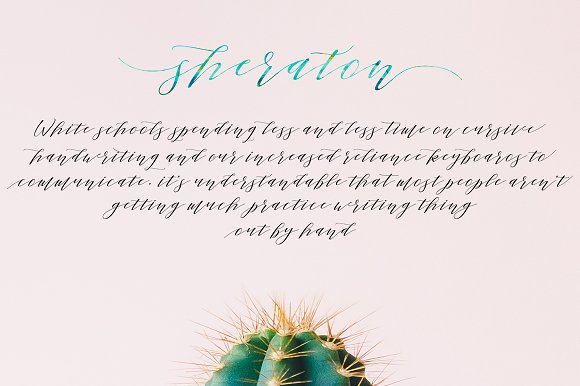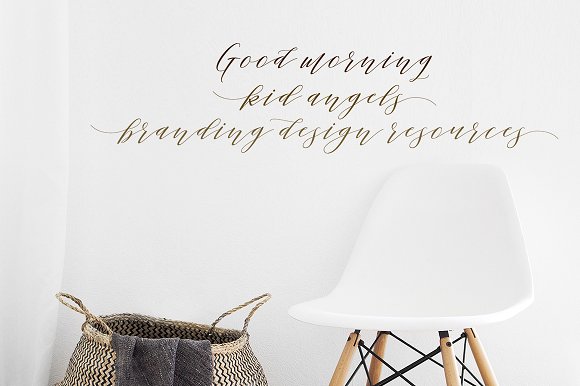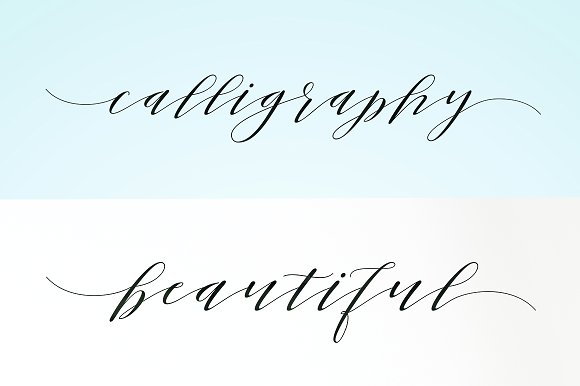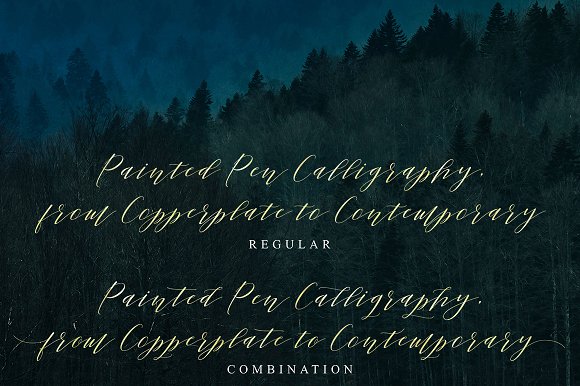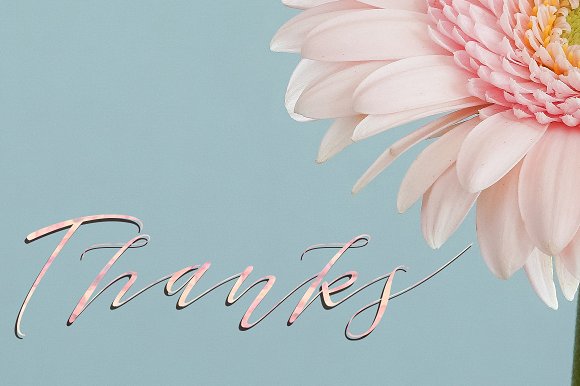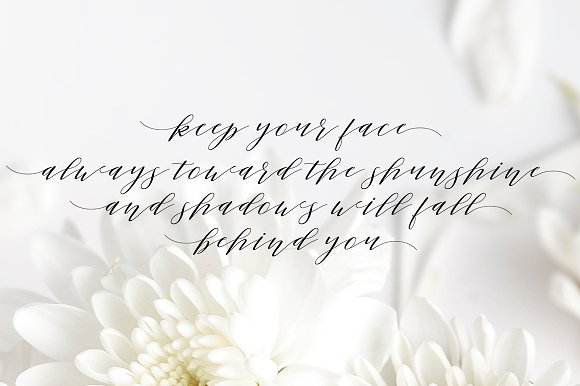
Sheraton Script Font
Sheraton Script is a lovely calligraphic manuscript modern, I hope you are interested in this font, dynamic and pretty with swashes. Can be used for many purposes. such as title, signature, logo, wedding invitations, letterhead, signage, labels, newsletters, posters, badges, etc.